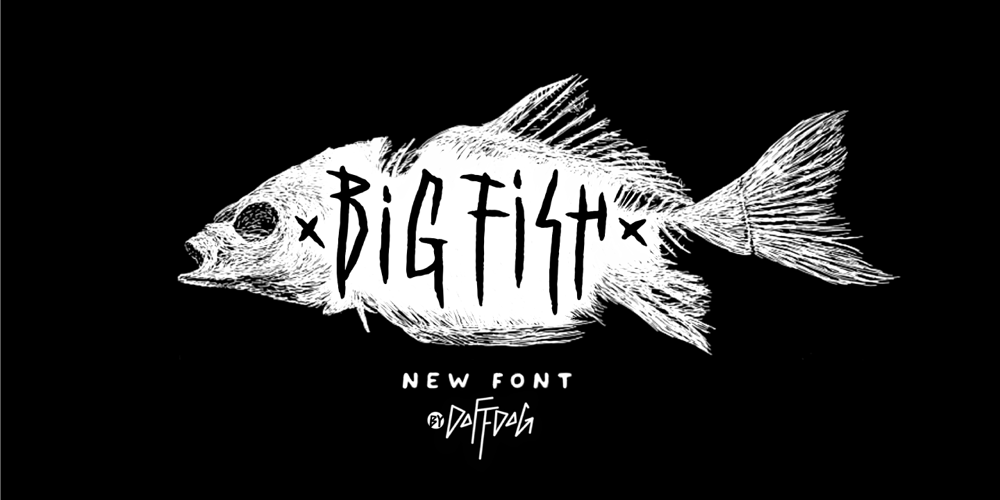
Big Fish DD
Big Fish DD font
Big Fish DD Font Family was designed by Alexey Potapov and published by Doffdog. Big Fish DD contains 1 styles and family package options. Big Fish DD is a decorative, metal and punk rock music inspired font. It is perfect for: Logos Posters Headlines Apparel Music covers & more Stay true! Stay metal!